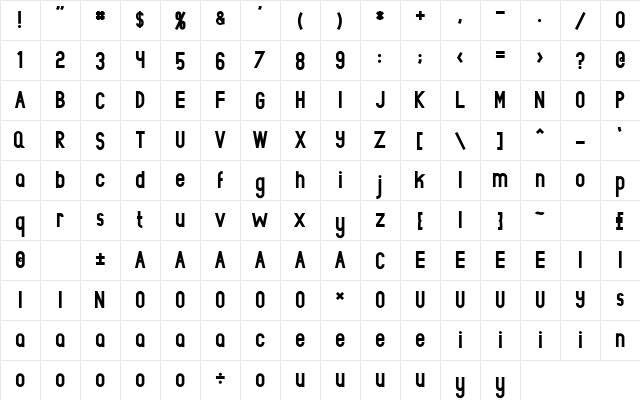
Rowland Bold
| Foundry | Edric Studio |
| Designer | Muhammad Deyan S & Muhamad Nouval fr |
Design Context for Rowland Typeface
Rowland offers clean, dependable letterforms without strong stylistic allegiance, making it a practical choice for designers who need flexibility. Its bold stroke weight gives it real presence on the page.